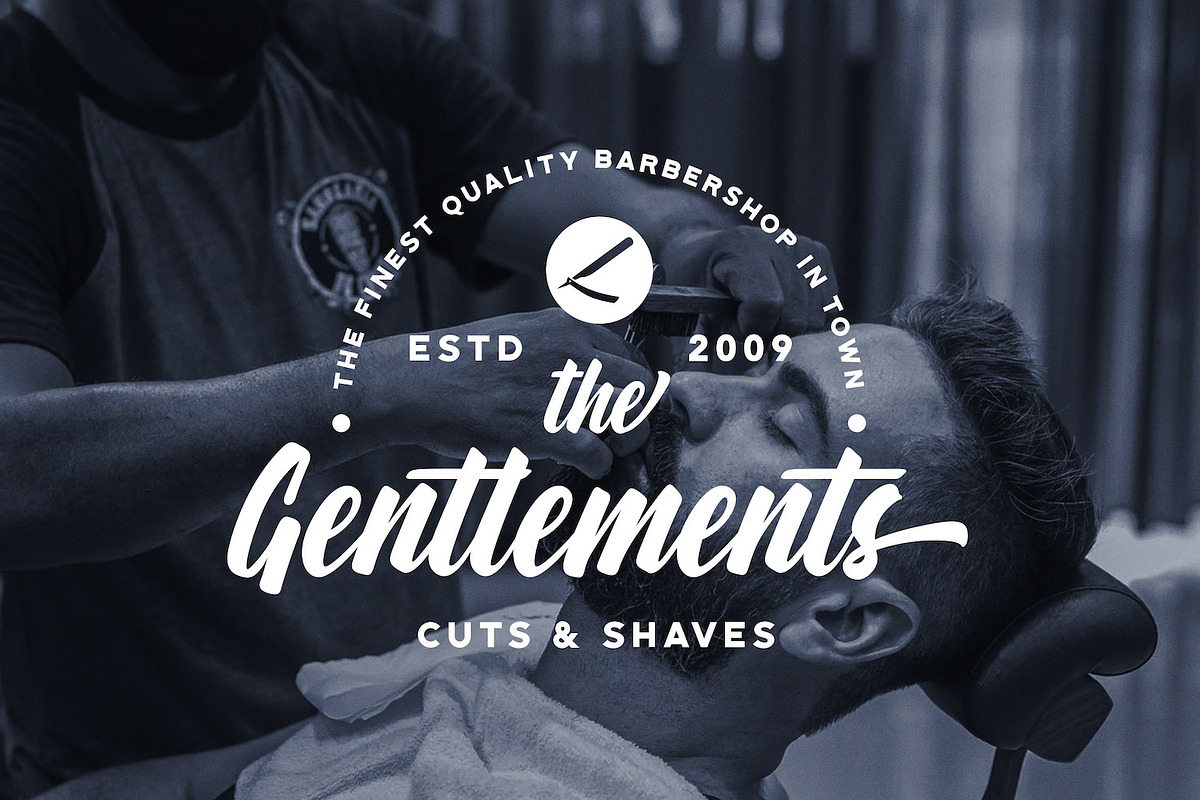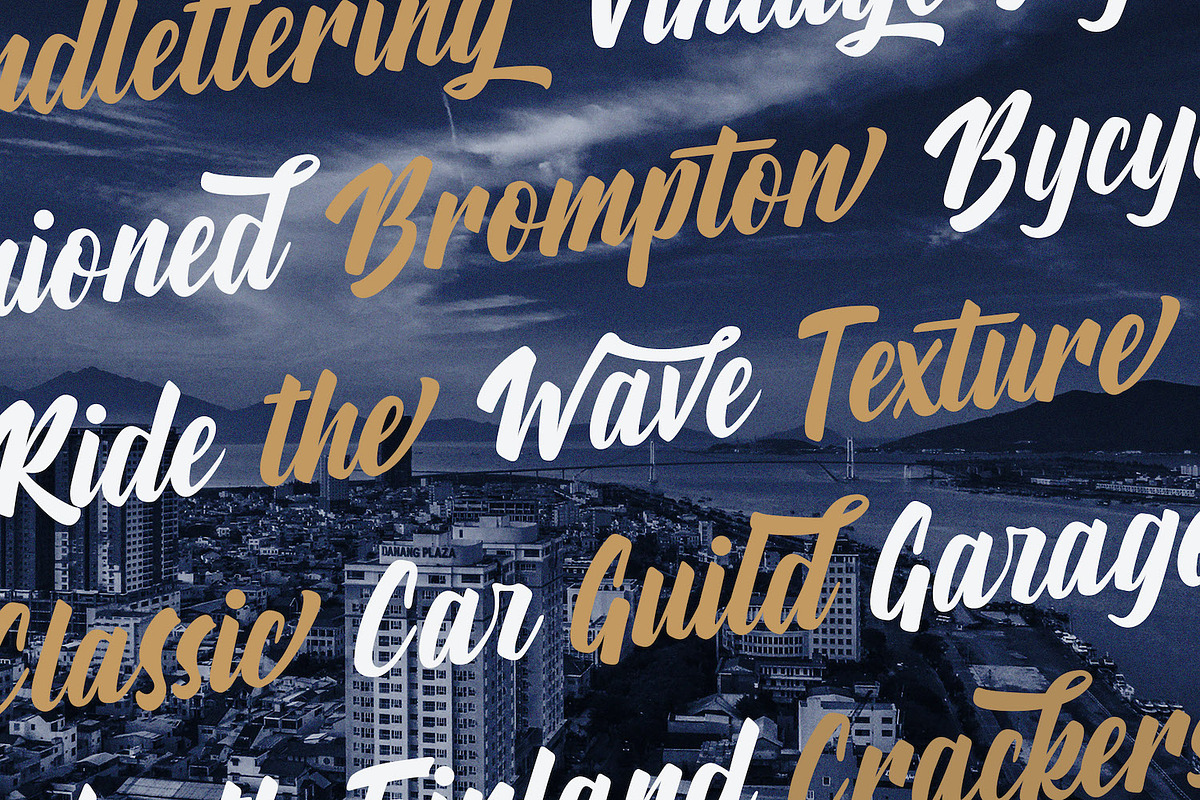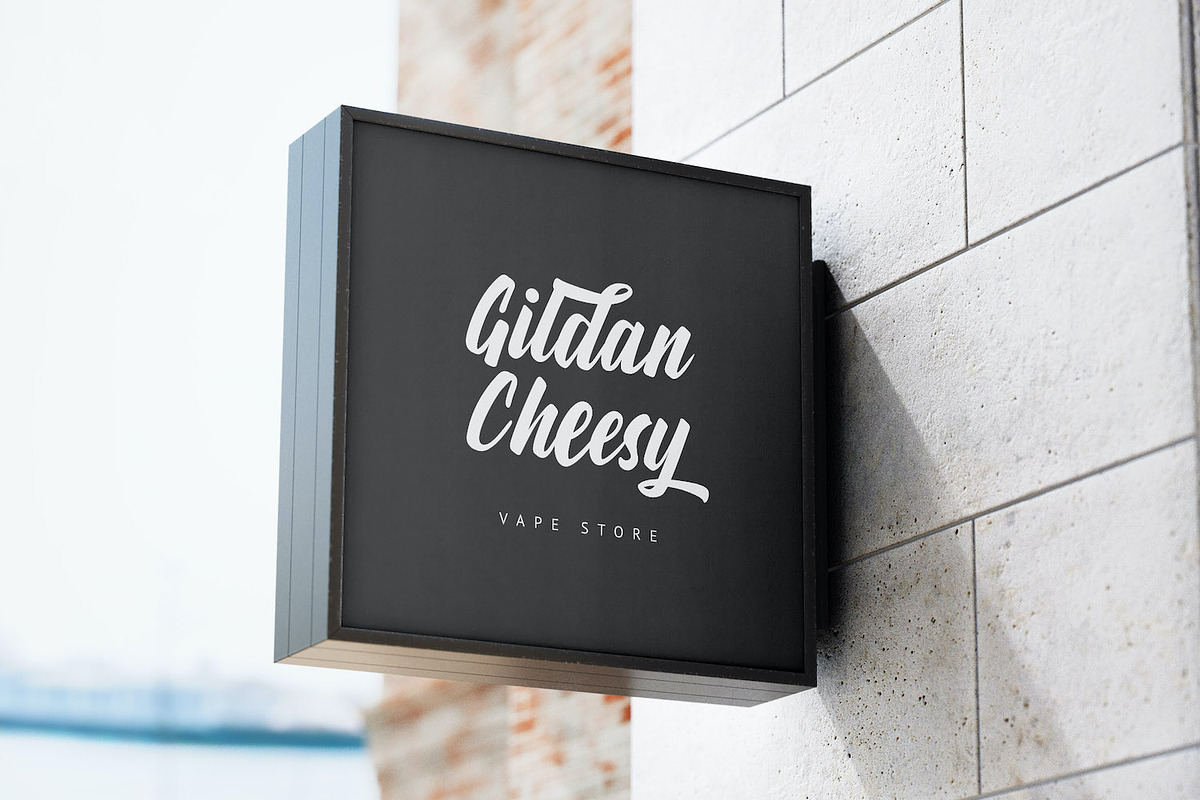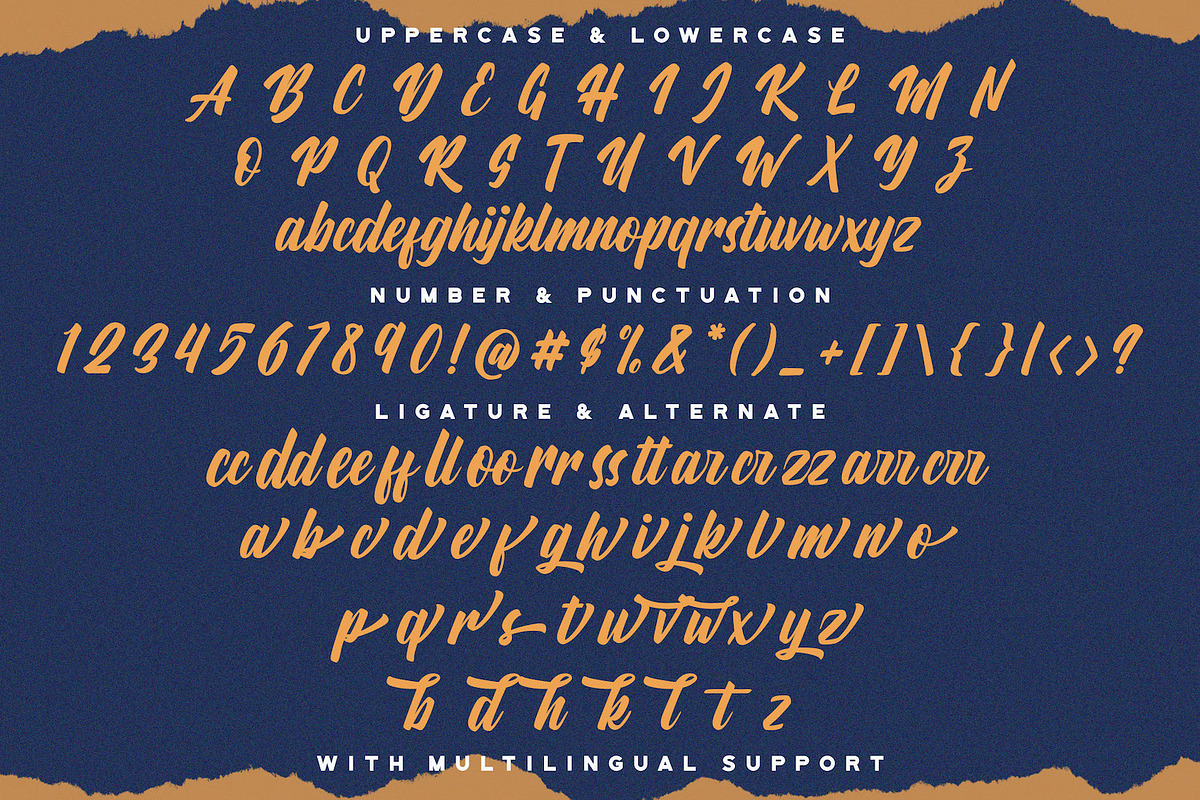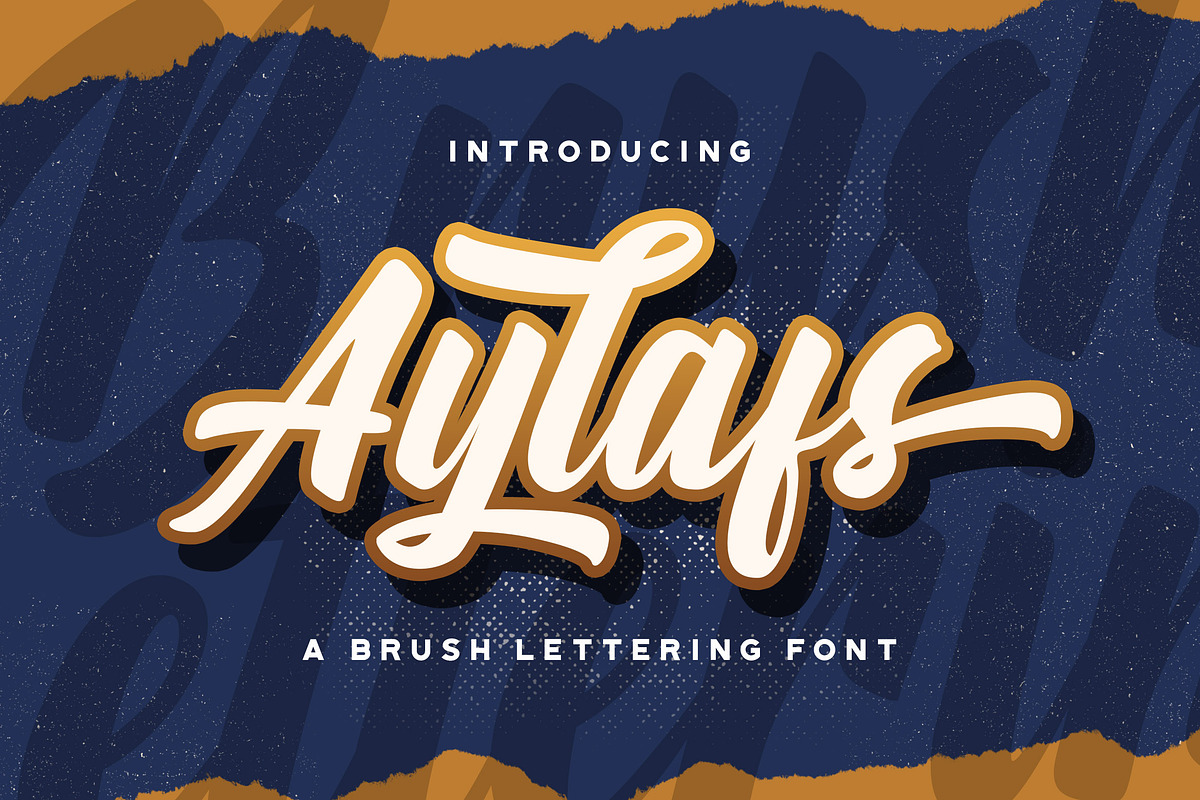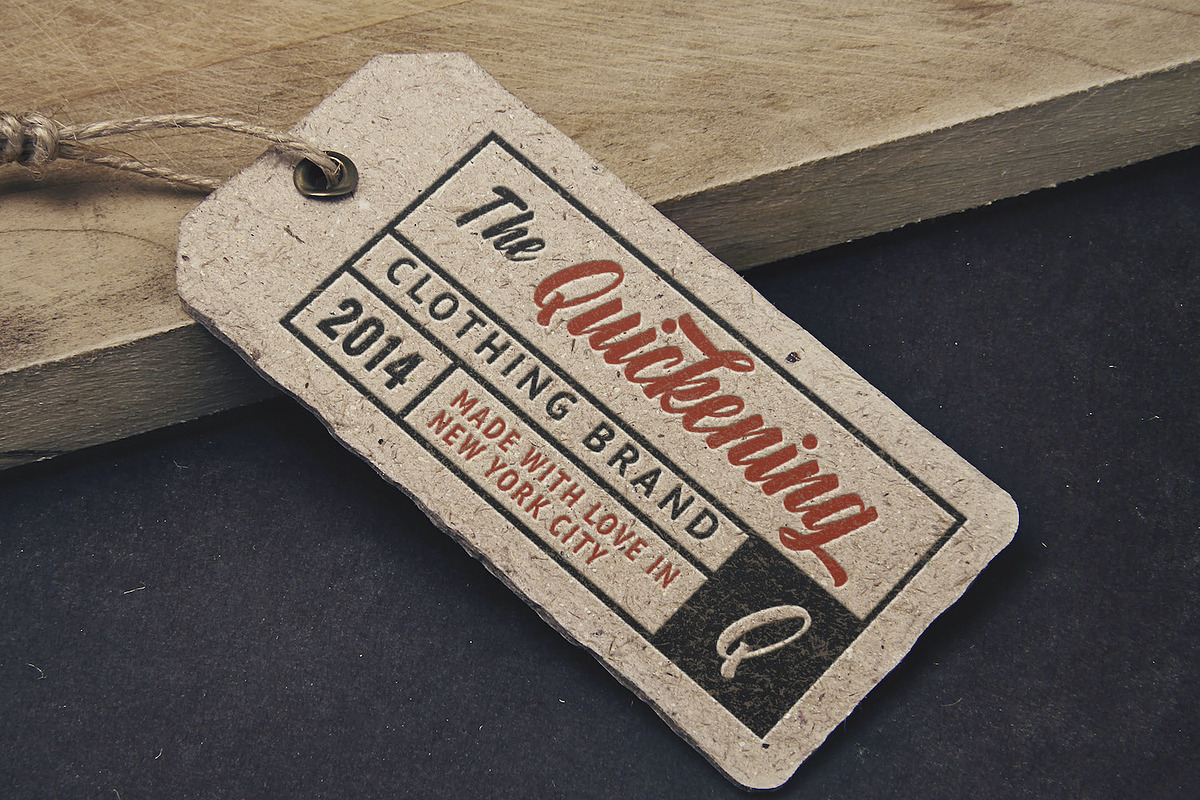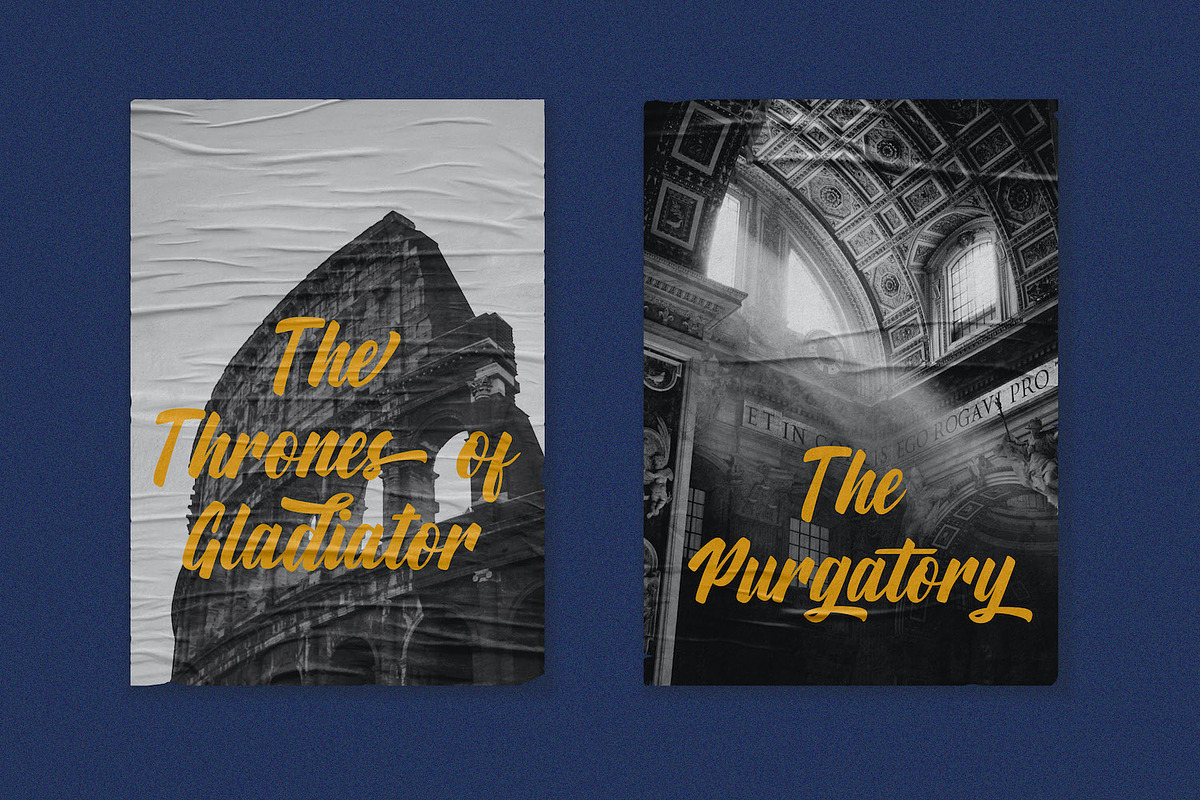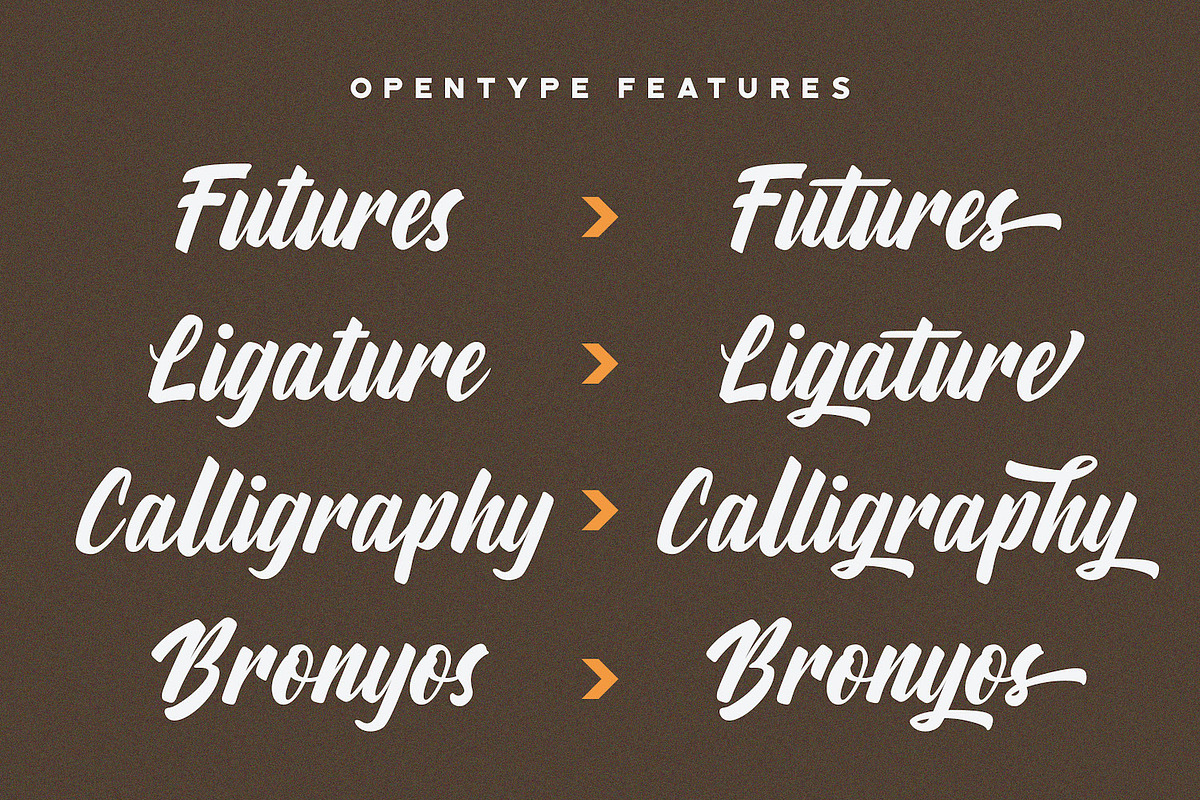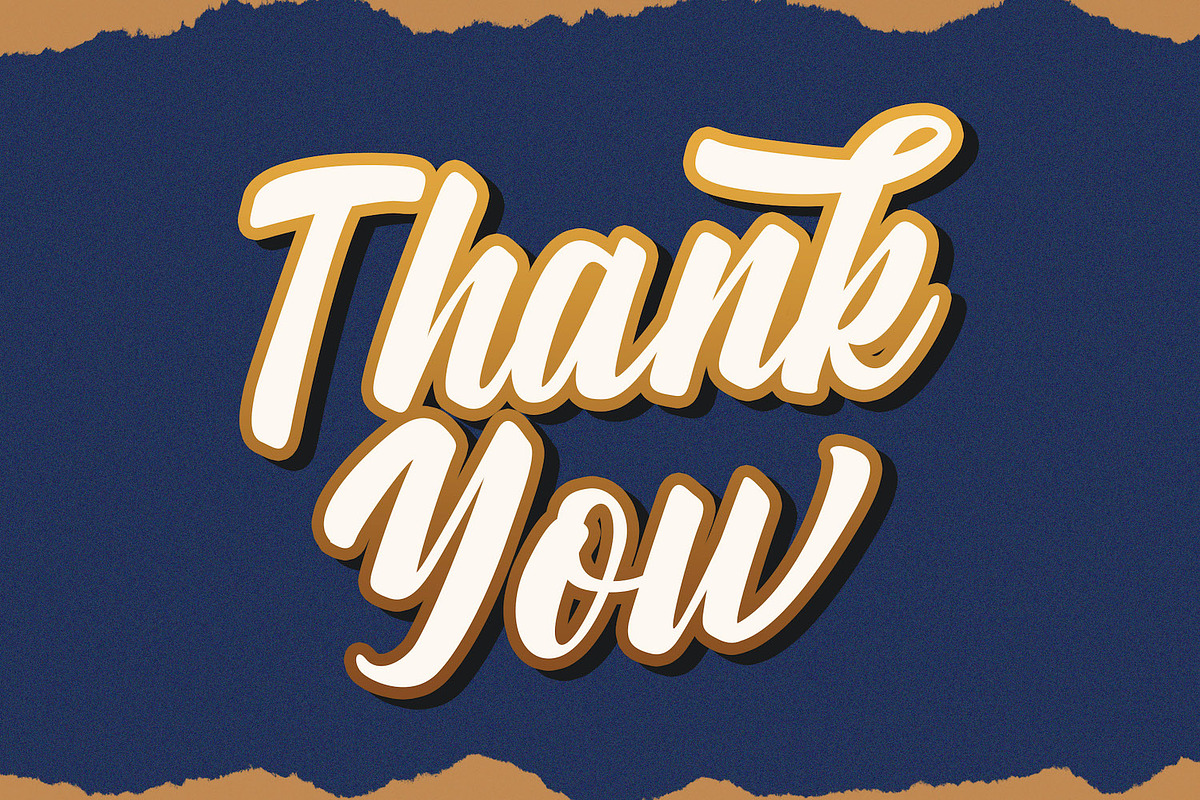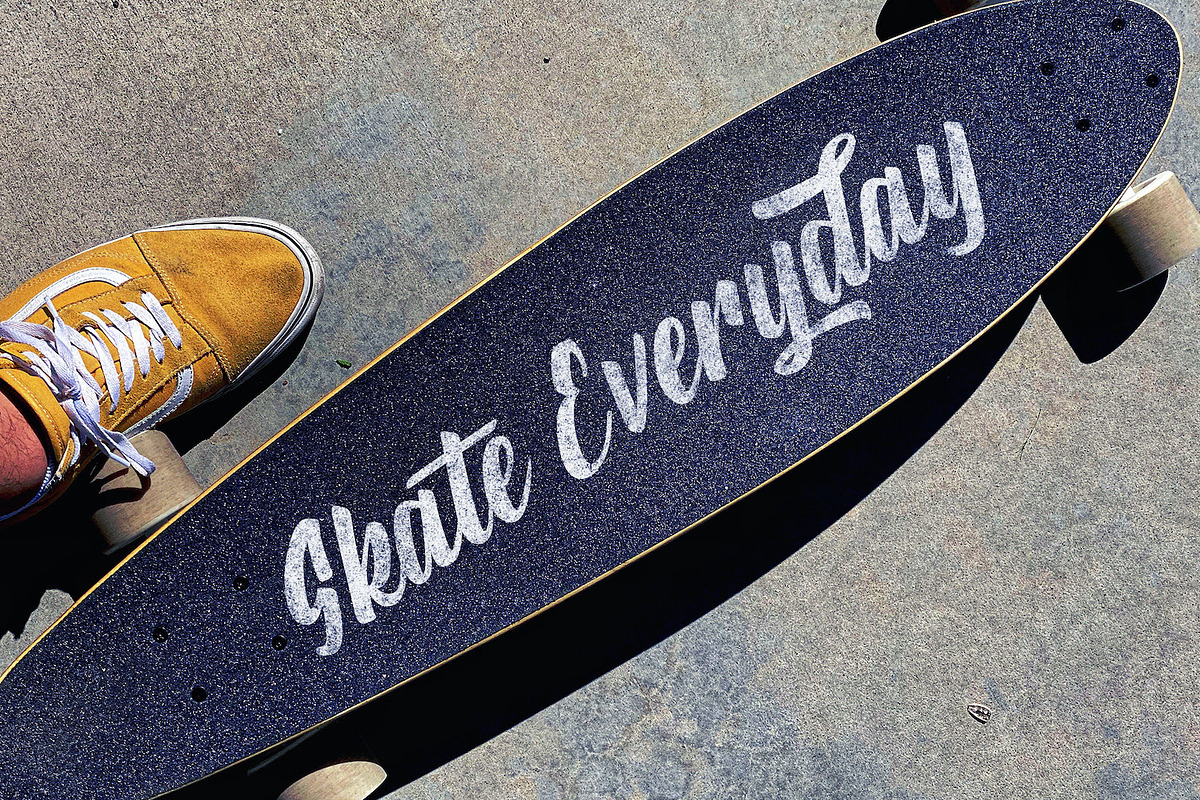
Aylafs - Bold Script Font
Introducing Aylafs - Bold Script Font
Aylafs is a flowing handwritten font, described by an elegant touch, perfect for your favorite projects. Fall in love with its incredibly distinct and timeless style and use it to create spectacular designs!